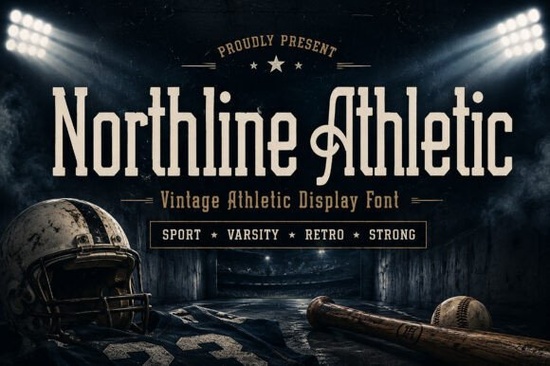
Northline Athletic Font is a standout choice for anyone looking to add a vintage athletic vibe to their designs. This bold display font draws inspiration from classic varsity lettering, old-school sports branding, and retro championship posters. Its strong, condensed letterforms and powerful character shapes make it perfect for projects that need a high-impact, nostalgic feel. Whether you're working on sports logos, team merchandise, or event promotions, Northline Athletic brings an authentic athletic energy that’s hard to match.
If you're designing for a sports team, creating promotional materials, or working on a retro-themed project, this font can help you achieve a professional and eye-catching look. It's especially useful for headlines, banners, and any design that needs to grab attention. The font's versatility makes it suitable for both digital and print applications, ensuring your work stands out in any medium.
What makes Northline Athletic unique? Unlike many other display fonts, Northline Athletic combines a vintage aesthetic with modern usability. Its condensed structure allows for efficient use of space without sacrificing visual impact. This makes it ideal for short phrases, slogans, and titles where clarity and style are both important. The font also maintains readability at larger sizes, which is crucial for signage, posters, and other large-format designs.
Who can benefit from using Northline Athletic? This font is particularly useful for small businesses, print-on-demand sellers, and creative hobbyists who want to add a retro sports flair to their products. It’s also a great tool for designers working on college identity systems, gym merchandise, or event promotions. The font’s boldness ensures it works well in both digital and physical formats, making it a flexible choice for a wide range of projects.
How to use Northline Athletic effectively:
- Use it for headlines and titles to create a strong visual statement.
- Pair it with simpler fonts for balance, especially in editorial layouts.
- Apply it to logos, t-shirts, and promotional materials for a vintage sports feel.
- Experiment with different colors and backgrounds to highlight its bold characteristics.
When working with Northline Athletic, consider the context of your project. For example, if you're designing a championship poster, the font’s retro vibe will fit naturally. If you're creating a modern sports logo, you might want to adjust the spacing or combine it with a cleaner typeface for contrast. Testing the font in different scenarios can help you find the best way to use it for your specific needs.
Before finalizing your design, make sure to test Northline Athletic in different sizes and formats. This will help you ensure that it looks good in all contexts, from social media posts to printed materials. Pay attention to how the font interacts with other elements in your design, such as images, colors, and layout structures.
Whether you're a designer, a craftsperson, or a small business owner, Northline Athletic Font can add a unique and powerful touch to your work. Its combination of style, readability, and versatility makes it a valuable addition to any design toolkit. Explore its potential and see how it can elevate your next project.